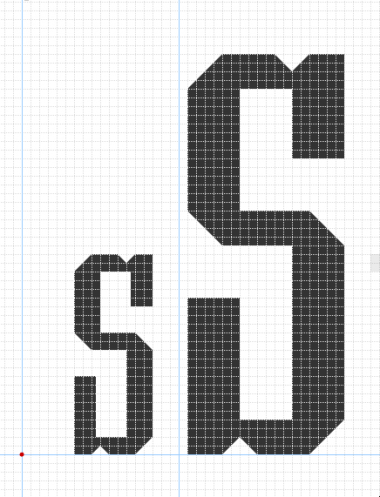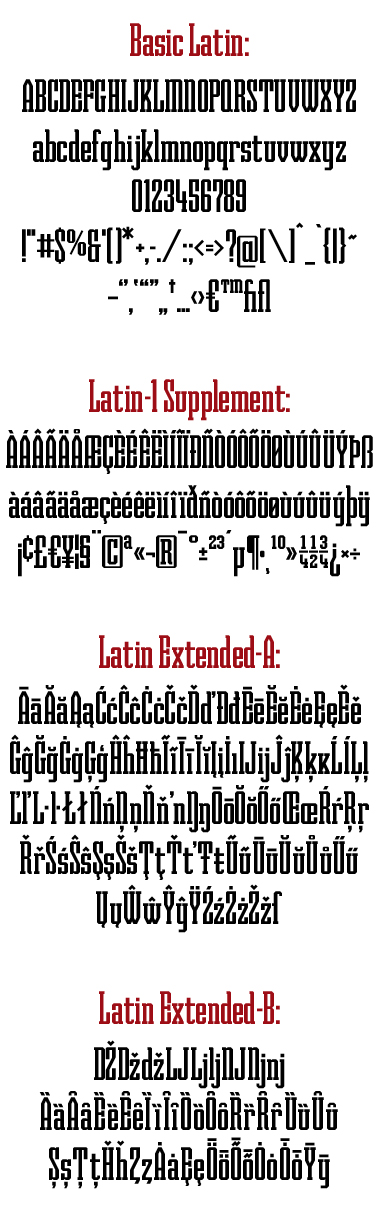
Prometheus Regular
by SquarePeg
Clone of Prometheus Light (Basic Set), which is based on condensed Grecian typefaces by Darius Wells and William Hamilton Page. Many Grecian wood type samples lack lower case characters or numerals (or both!)... hence my sampling of different sources.
Thanks, Stephen, and thanks to those who have voted! I just updated the cedillas and ogoneks, which were a bit weak in their original versions.
Thanks, Axel. Right now I am updating Prometheus Light by doubling the size of the grid. Then it will be this one's turn. After that I plan to make the bolder weights. Prometheus has become a rather big project! :-D
Prometheus is back, after my struggle to re-size it (special thanks to Stephen Coles and Rob Meek!). It is now split in two just like Prometheus Light, so don't forget to check out the other half. :-)
Update: I finally adjusted the wordspace character for both halves of Prometheus.
I made some adjustments to the lowercase, after running into trouble with Prometheus Bold.
Here is the s, before and after:
@SquarePeg You're probably aware of this but just in case, here's a nice example of Prometheus in use (via Font_ID)
Thanks to continuing improvements to FontStruct by Mr. Meek & Co., I've been able to combine both parts of Prometheus Regular. 401 characters, all under the same roof!
Prometheus Regular supports the following languages:
Breton, Catalan, Croatian, Czech, Danish, Dutch, English, Esperanto, Estonian, Finnish, French, German, Hungarian, Icelandic, Italian, Latin, Latvian, Lithuanian, Norwegian (Bokmål), Polish, Portuguese, Romanian, Slovak, Slovenian, Spanish, Swedish, Turkish, and Welsh.